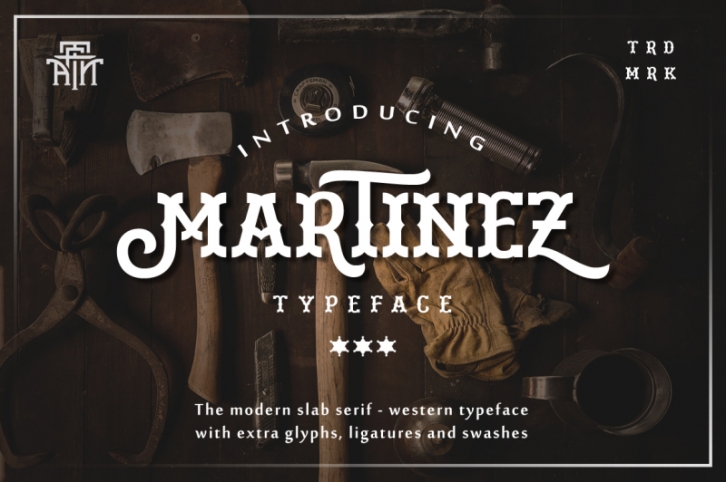
Greetings. Introducing our new work, "Martinez Typeface". Made with vintage references like a cowboy, lumberjack, wooden and hand craft. The modern slab serif that you can apply for your headline, sub headline even your body text. There is Normal & Shadow style that gives you choices.
The western font with a lot of features inside. Make your own combination with ligatures, alternate and swashes. Recommended for any style especially vintage, retro, minimalism and contemporary design. This font is made with simple shapes that you can apply too in your print works like t-shirt, embriodery, poster and craft.
• Punctuation
• Symbols
• Diacritics
• Stylistic Alternates
• Swashes